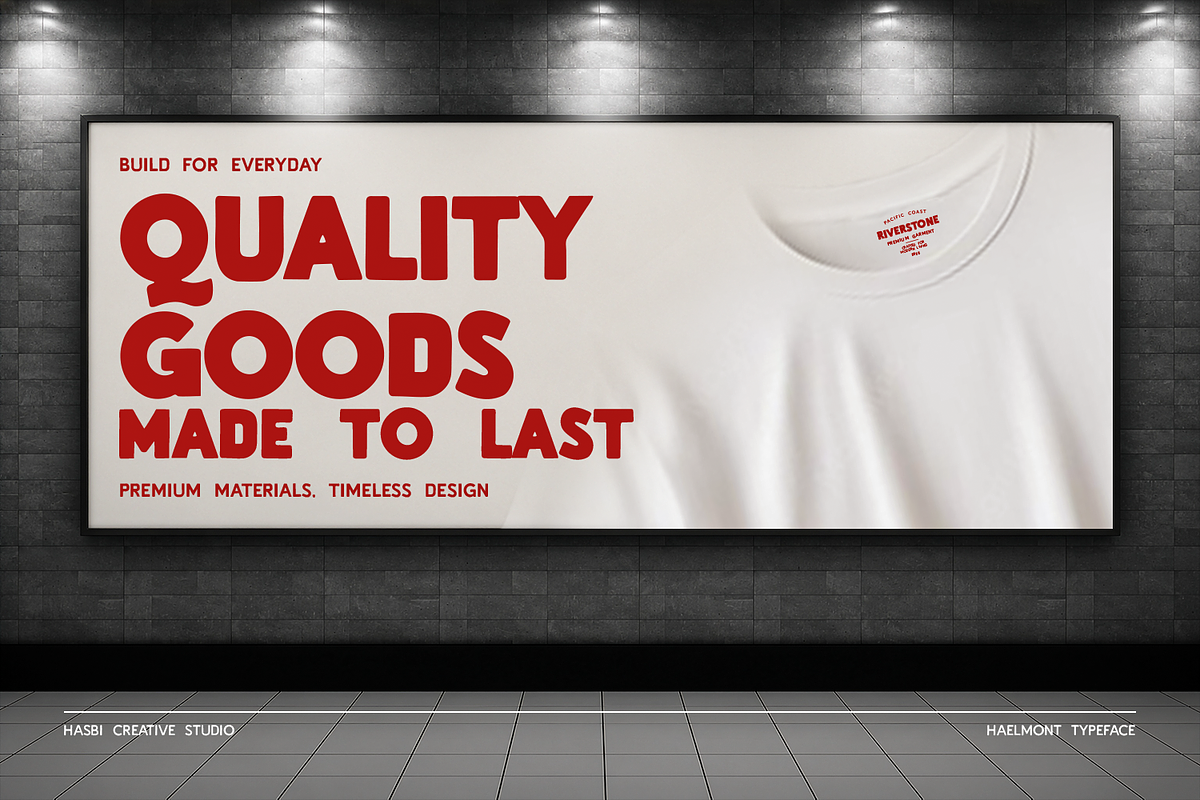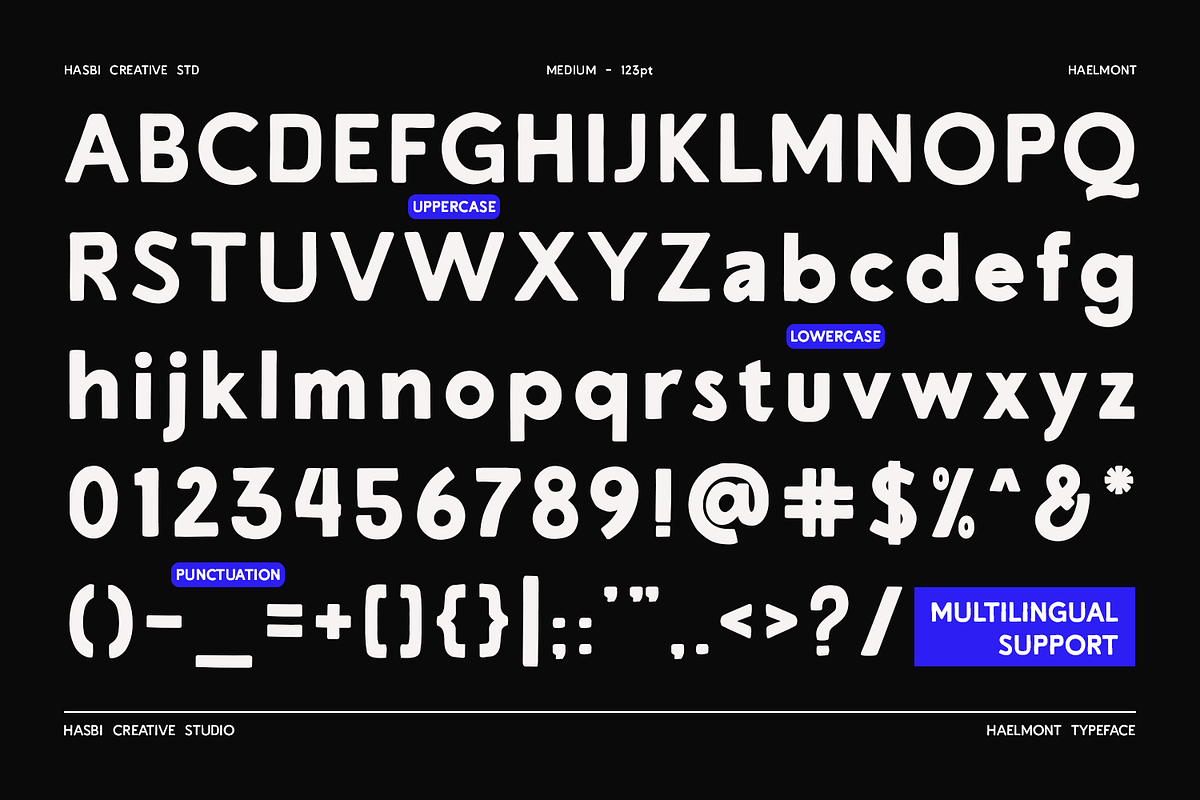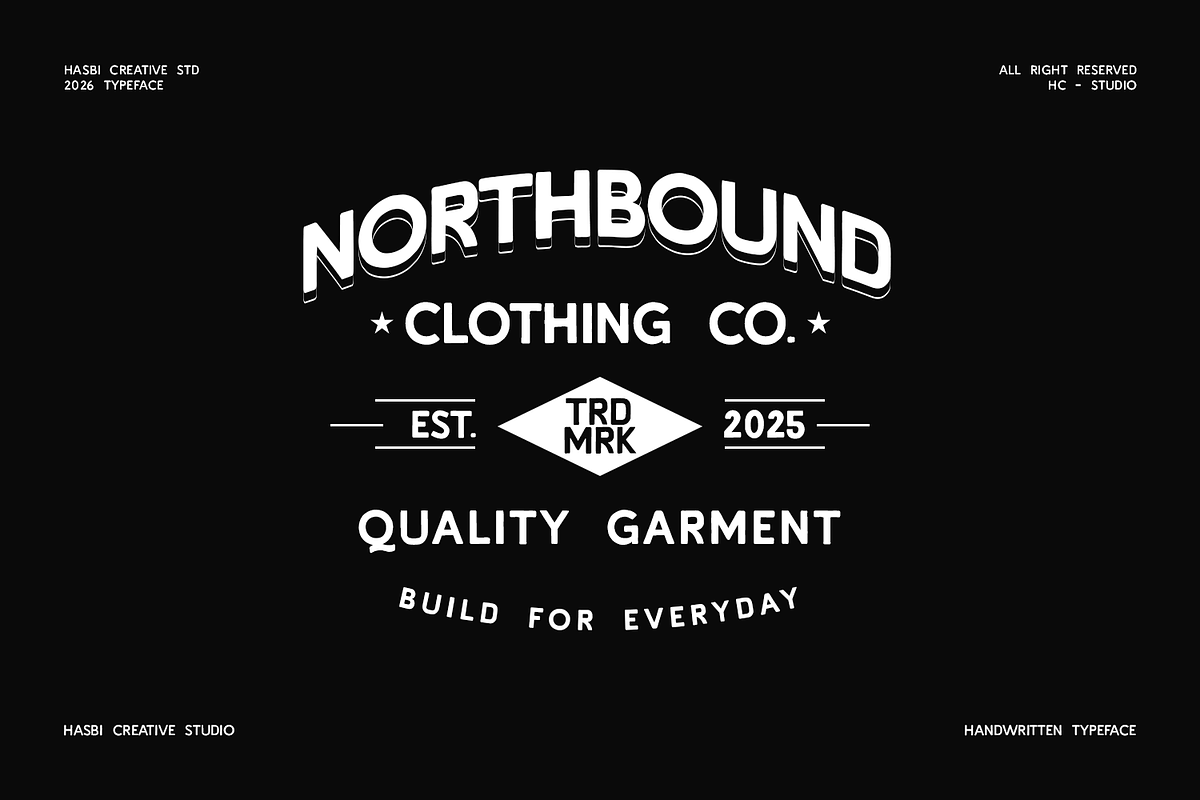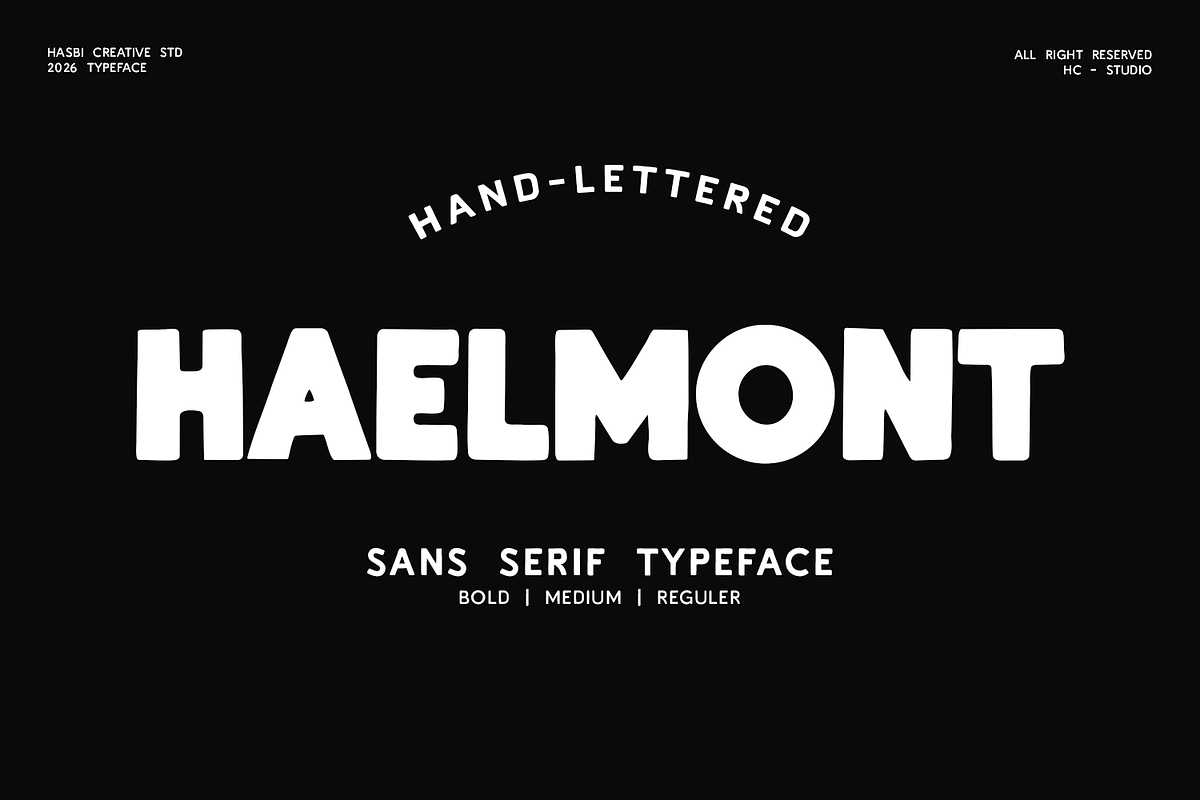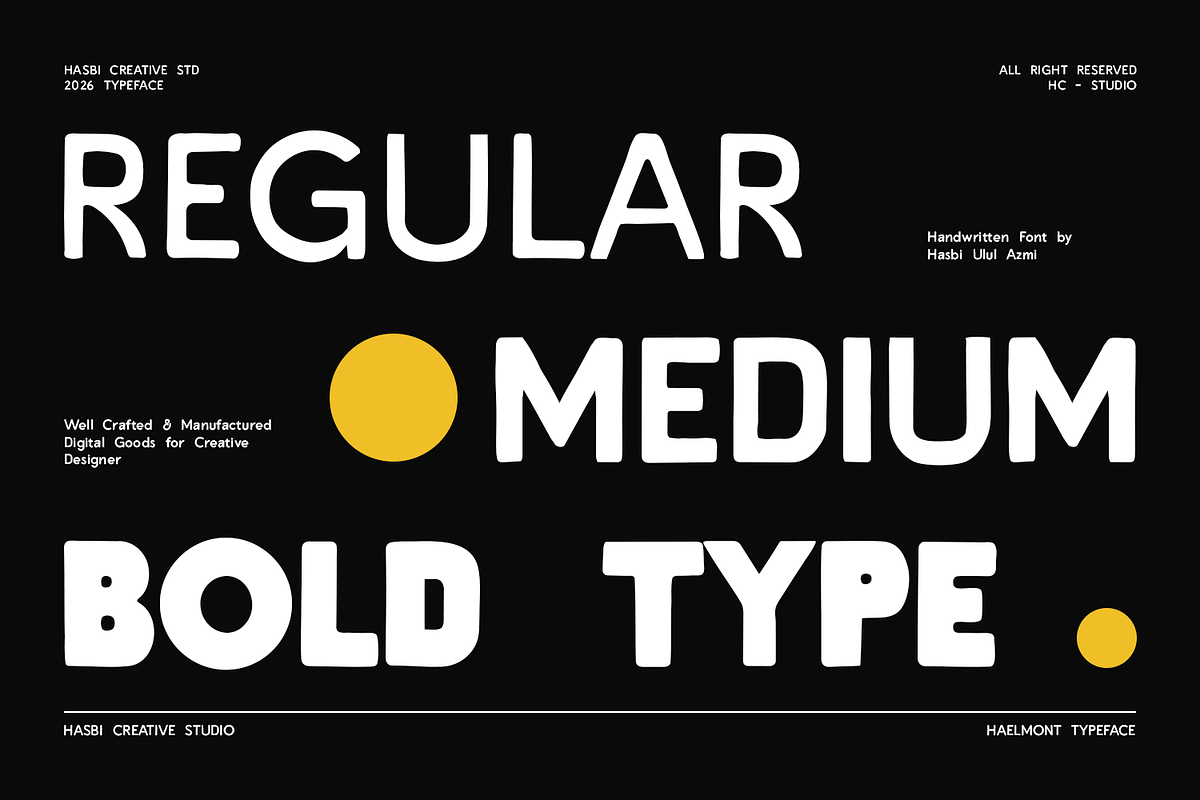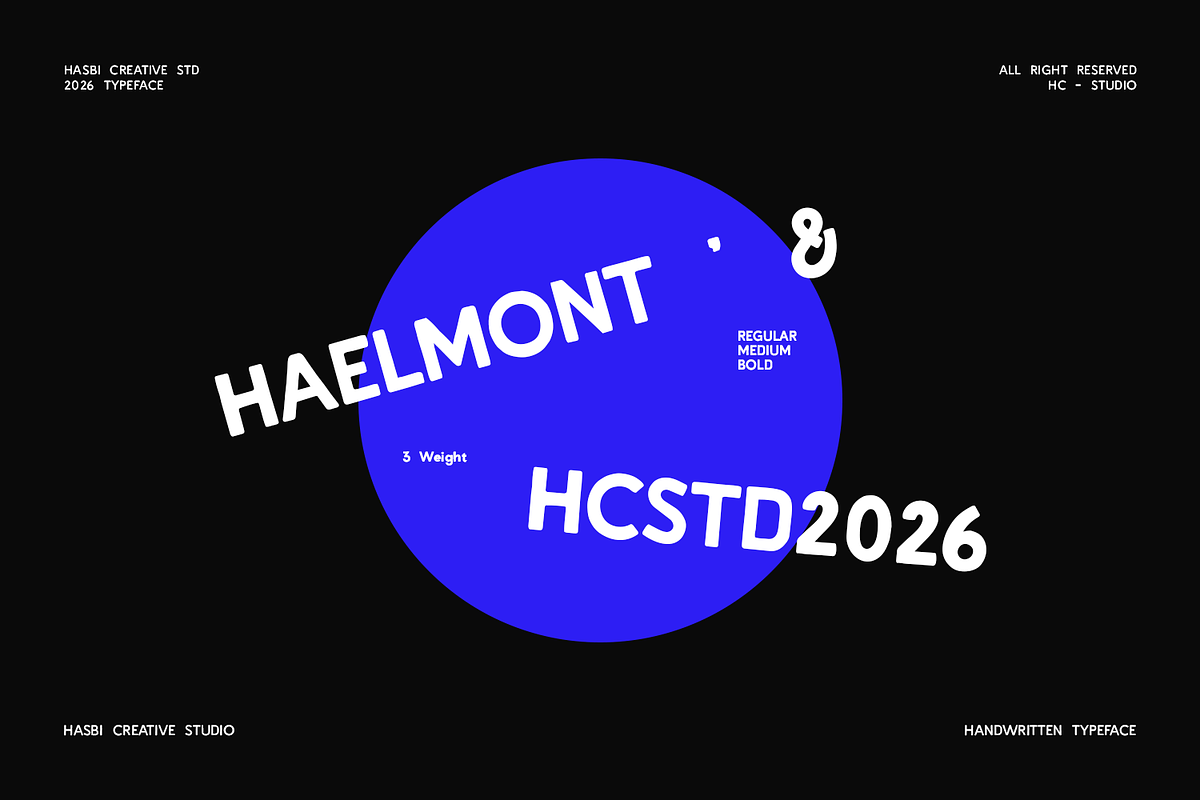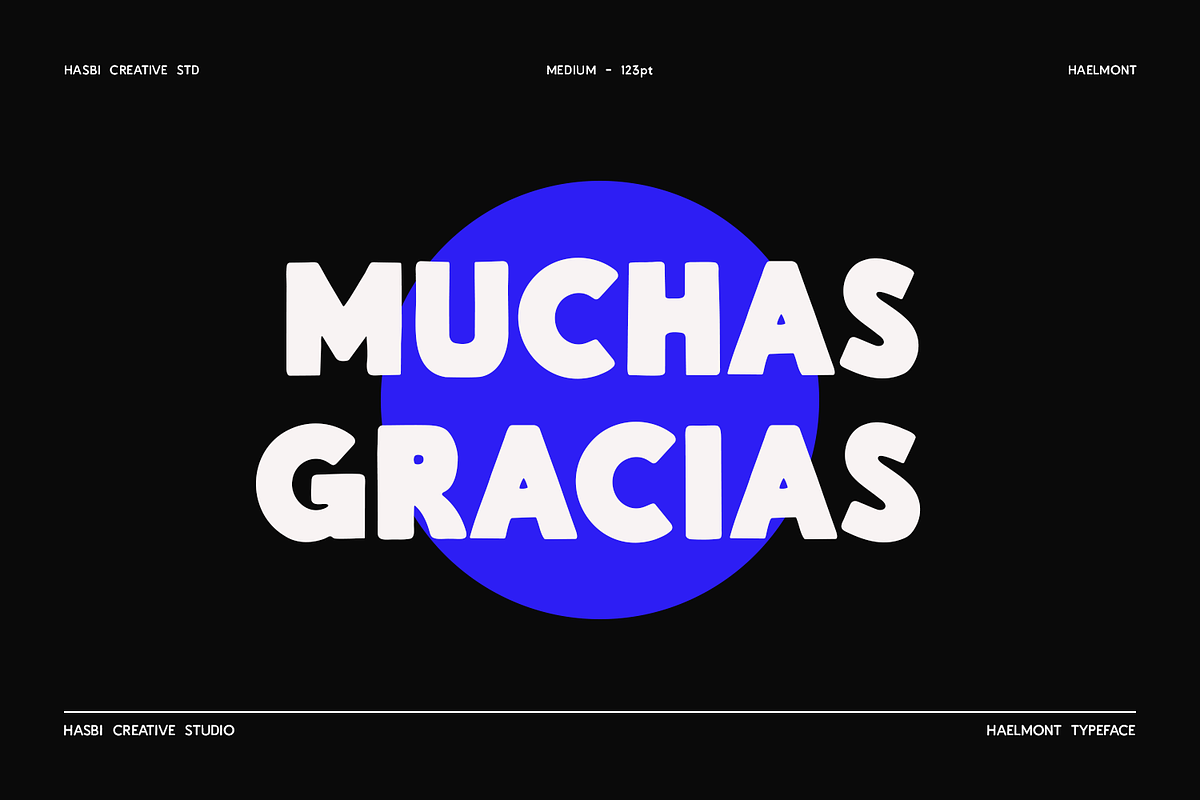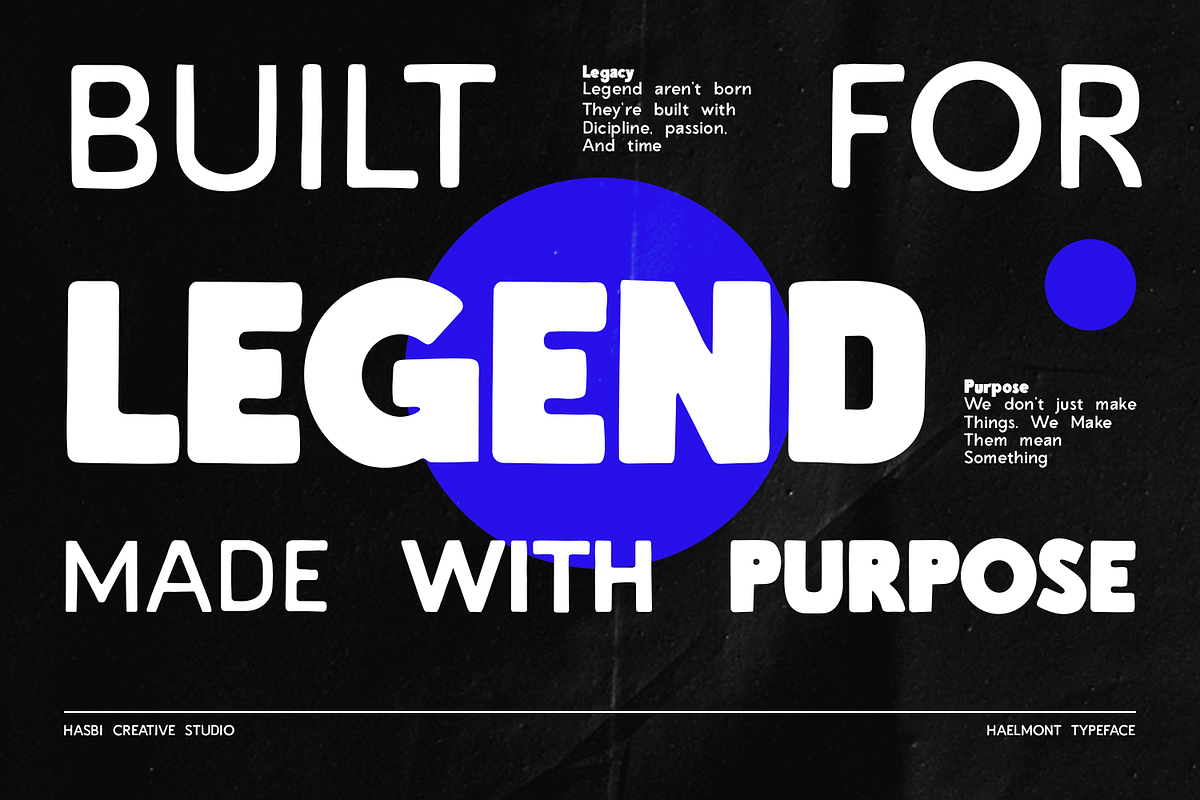
Haelmont - Handwritten Sans Serif
Haelmont is a handcrafted sans serif typeface that blends organic hand-drawn character with modern geometric simplicity.
Created from hand-lettered sketches, each character carries subtle natural imperfections that give the font an authentic, approachable, and distinctive personality. The result is a versatile display font that feels both contemporary and human.
Whether you're designing a fashion brand, streetwear label, packaging, logo, poster, social media campaign, or editorial layout, Haelmont delivers strong visual impact while maintaining excellent readability.
Its bold rounded shapes, balanced proportions, and handcrafted details make it suitable for projects that demand warmth, creativity, and originality.
Branding Identity
Streetwear & Apparel
Fashion Labels
Posters & Flyers
Editorial Headlines
Merchandise Design
Advertising Campaigns
Web Design
Modern Vintage Projects